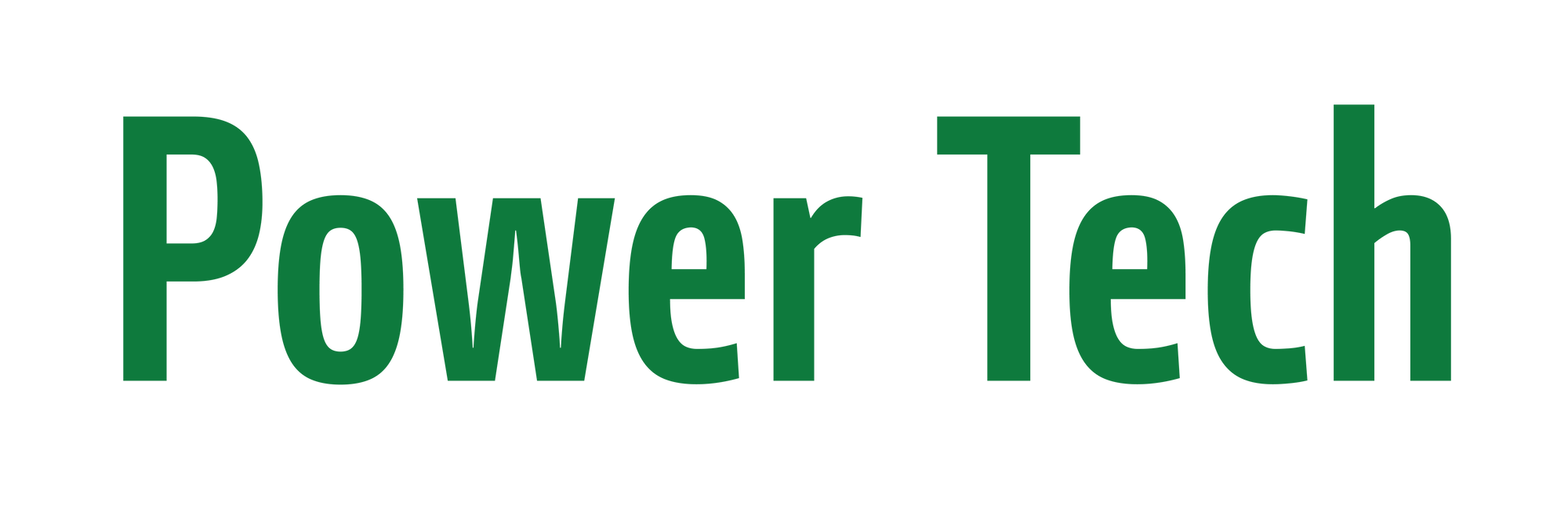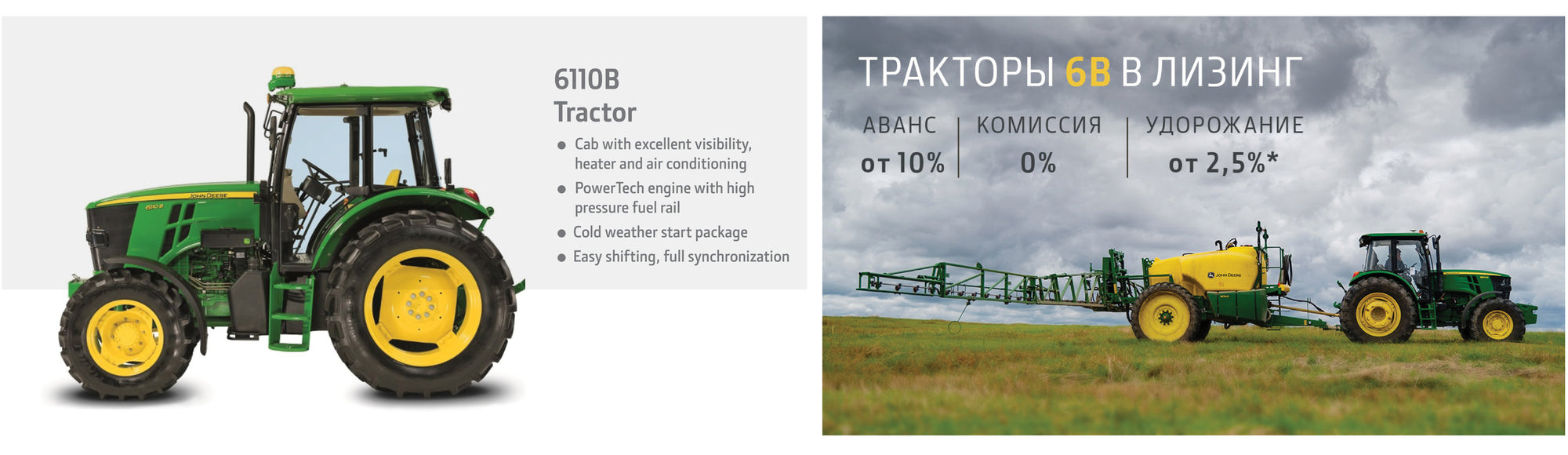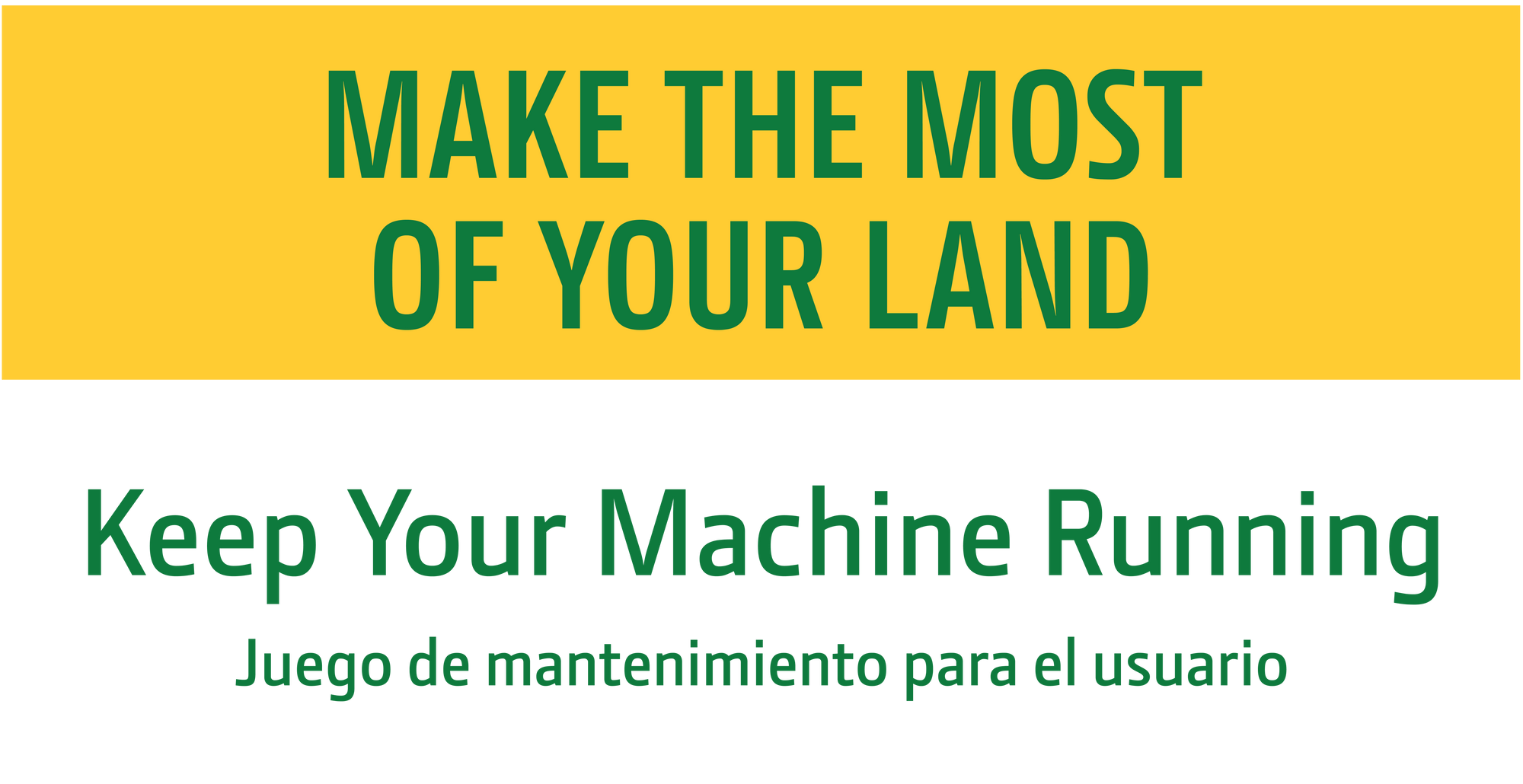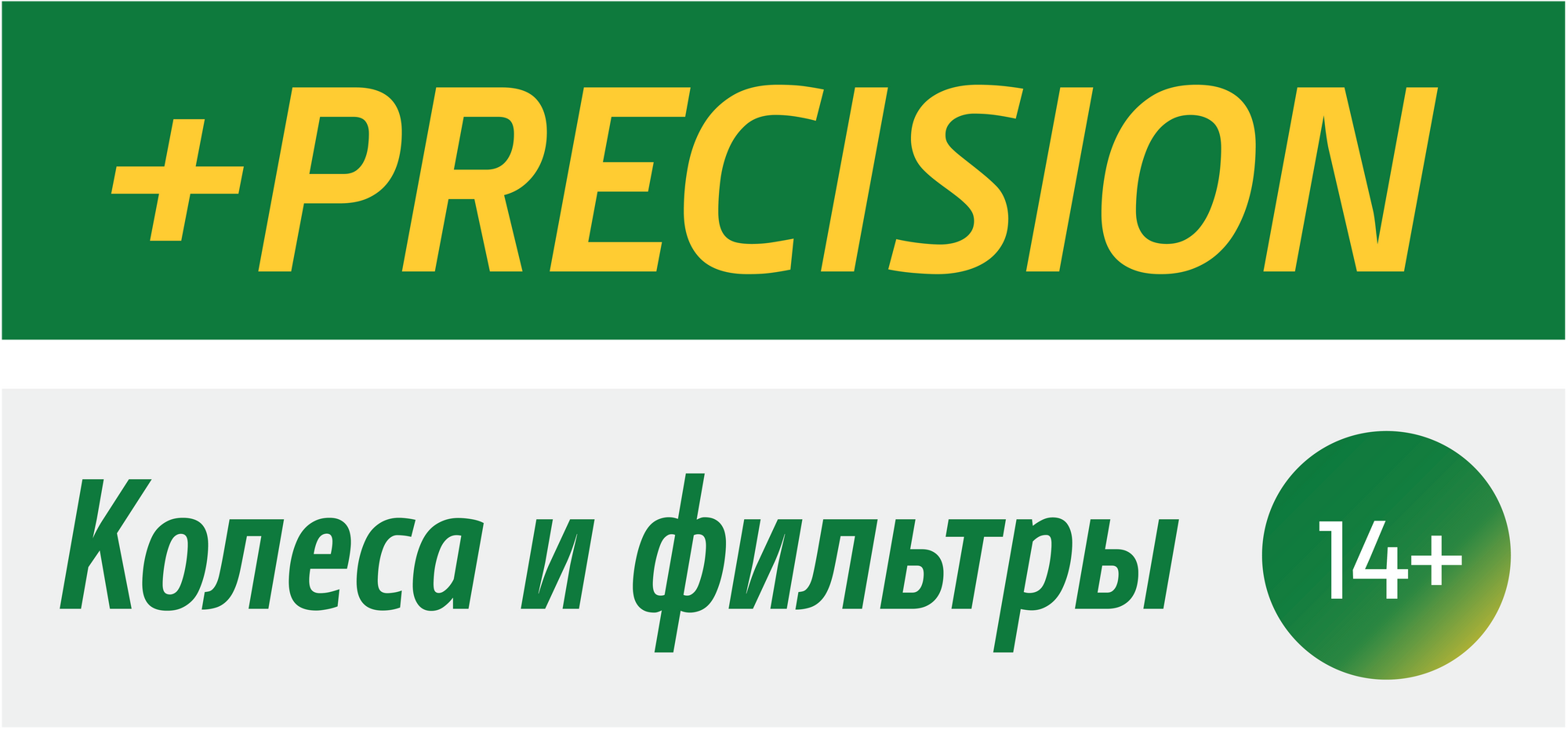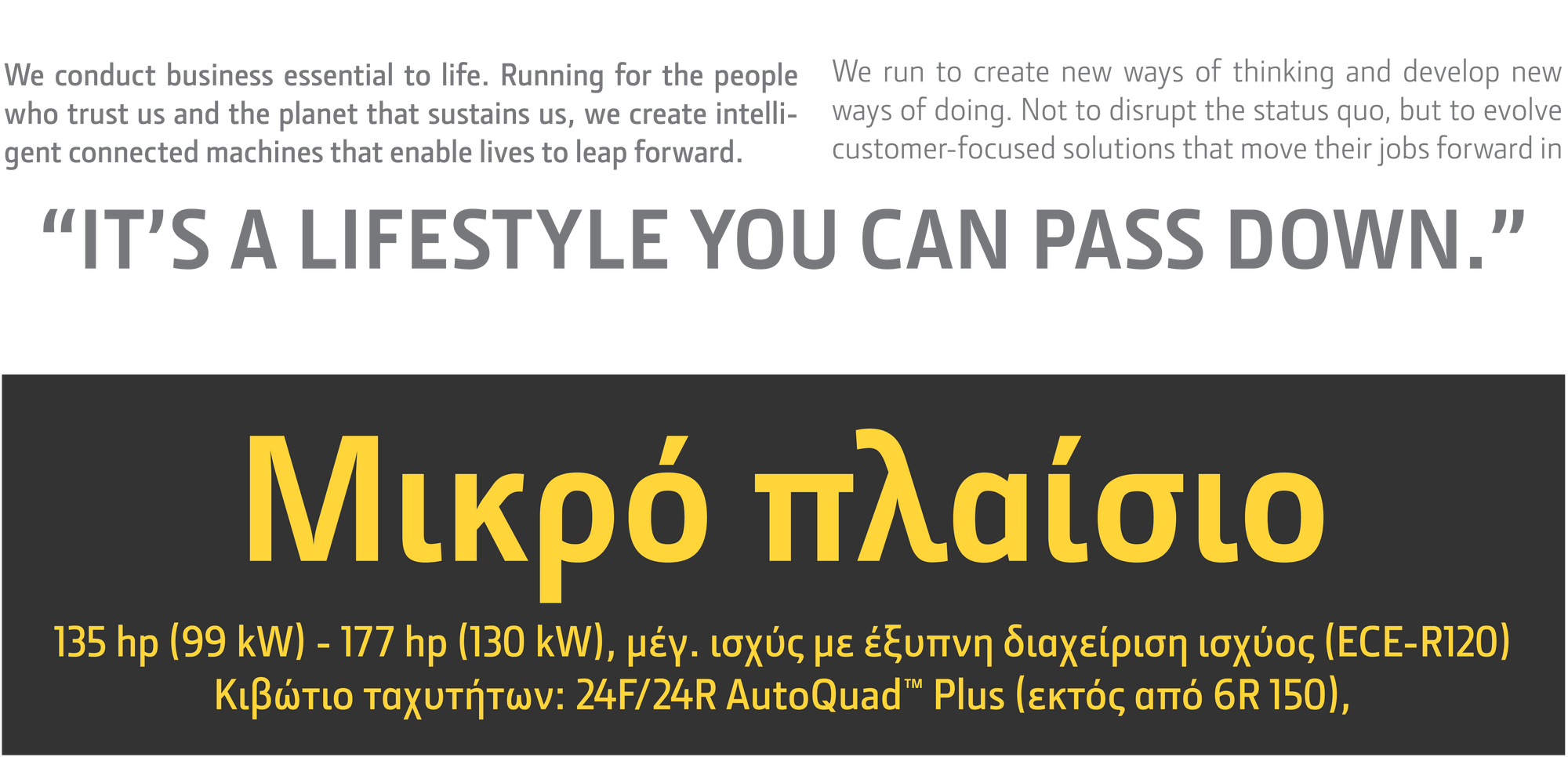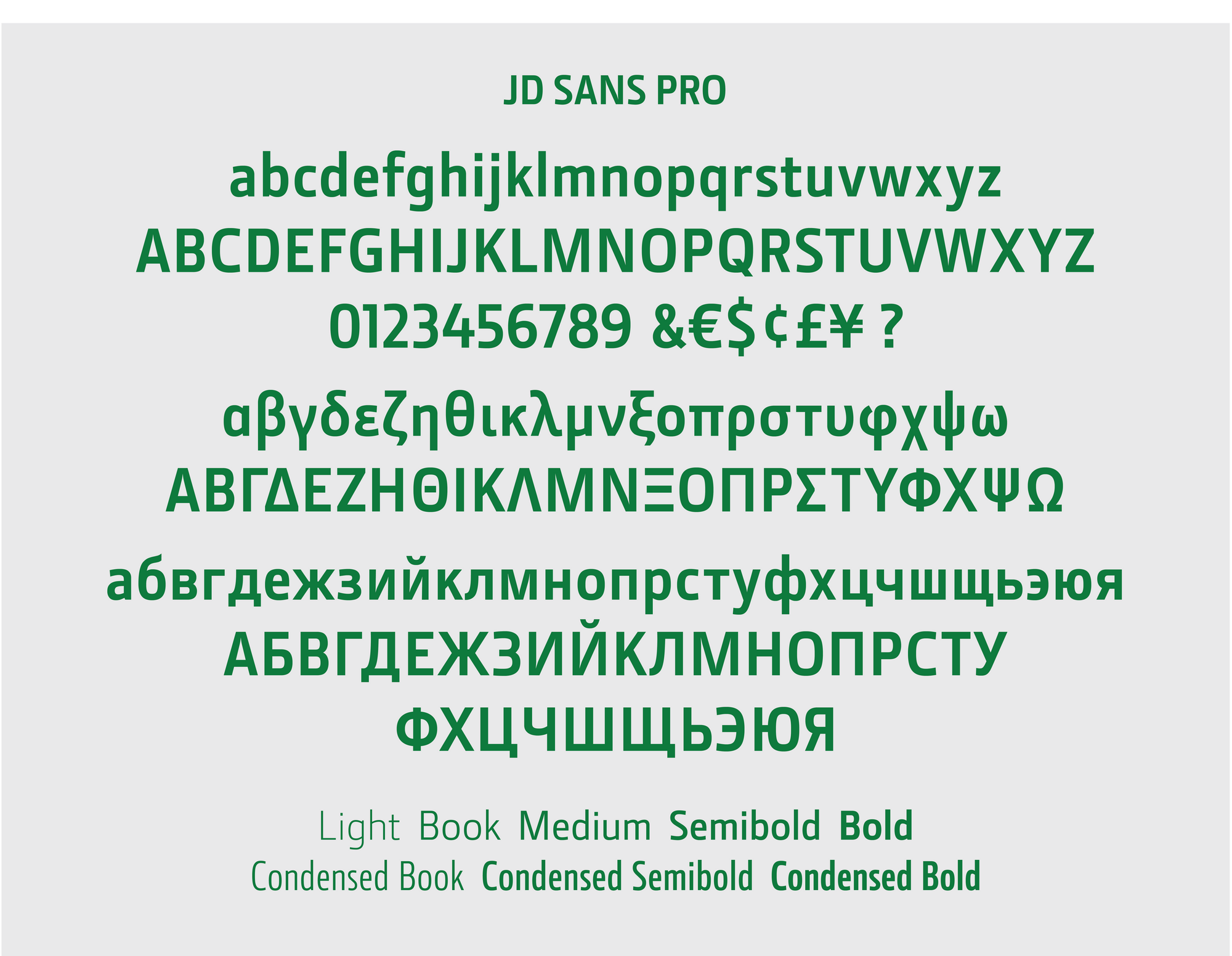
JD Sans, John Deere
Asked by John Deere, LuxTypo tailored one of its own type families, Section, to support the JD global brand marketing communications platform. Customization included extending the character set to support Cyrillic and Greek. Additional weights and widths were created as well to make the brand visual language more proprietary.
Specs:
16 styles
Broad Latin, Cyrillic and Greek language support